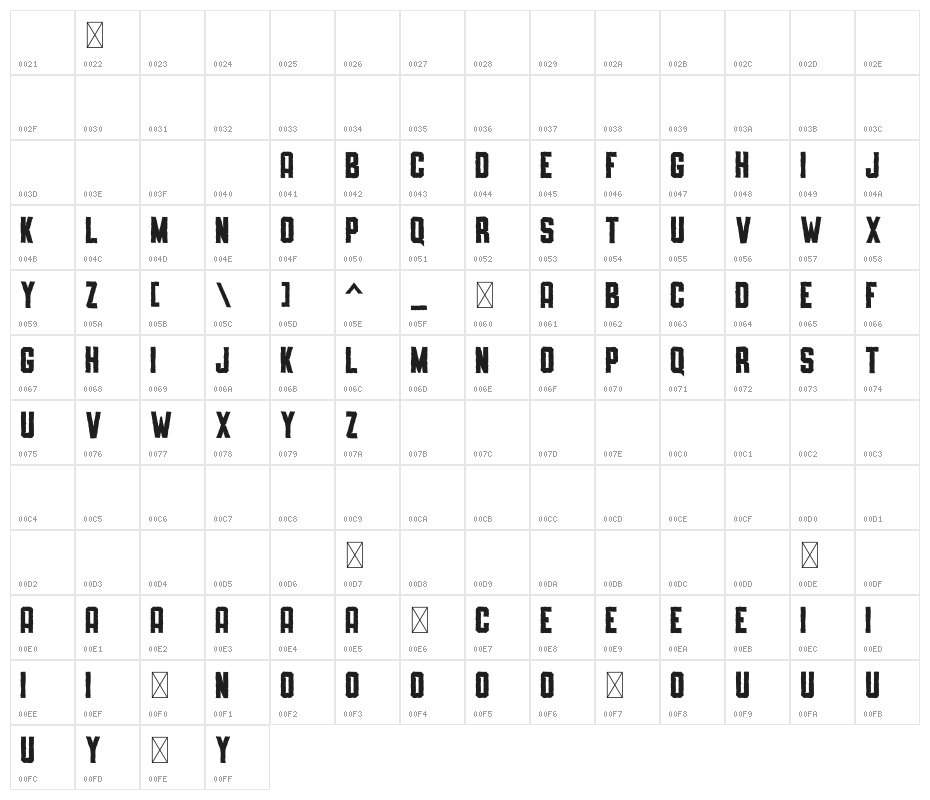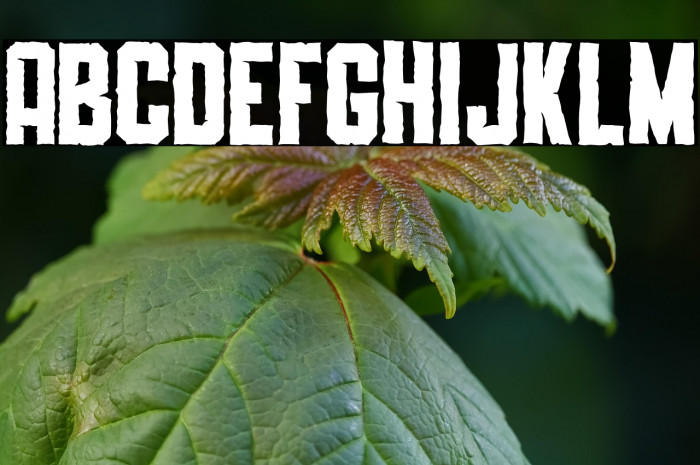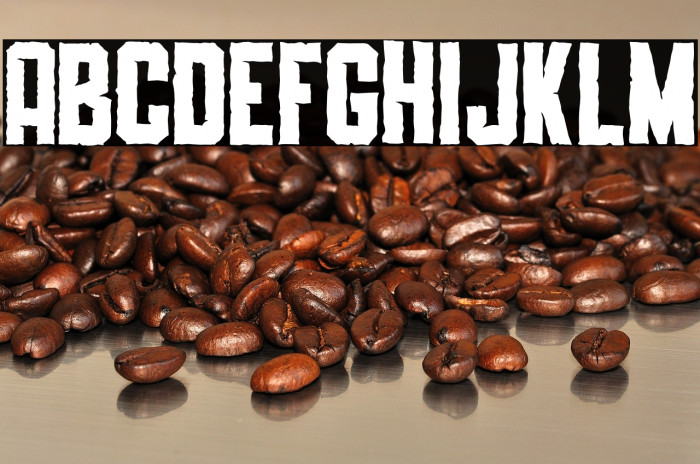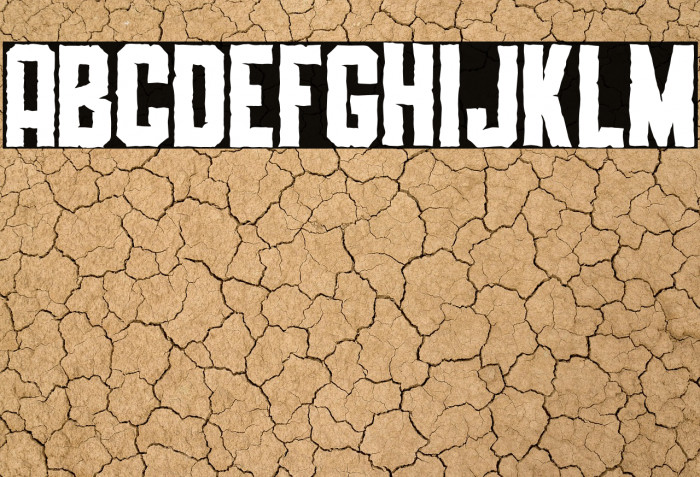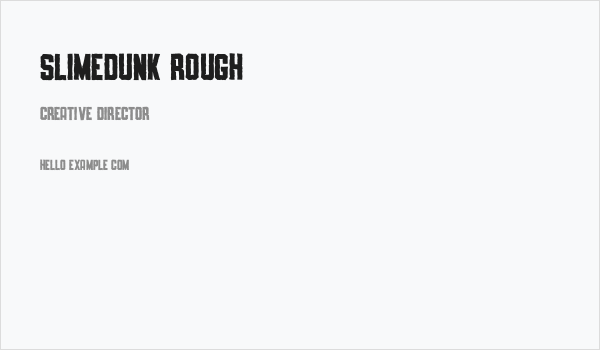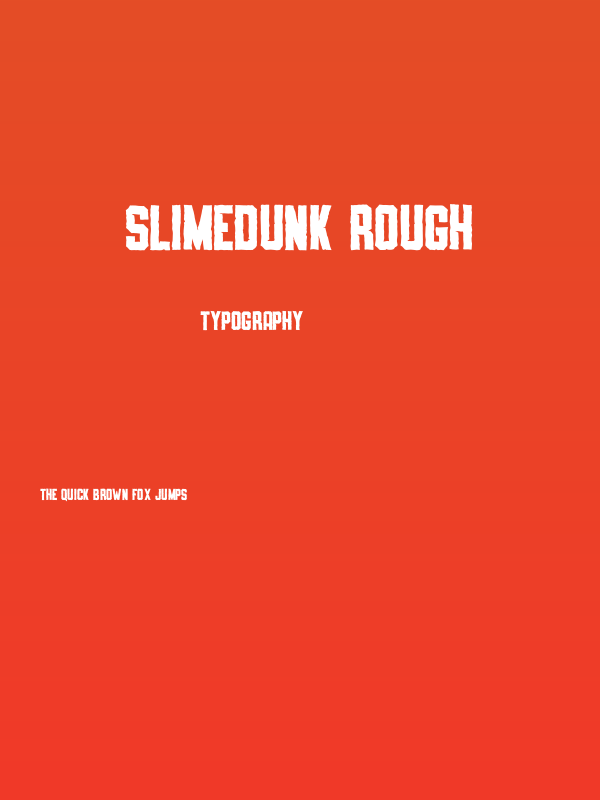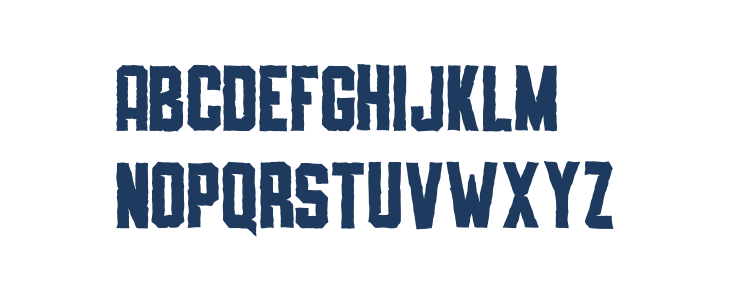
SLIMEDUNK ROUGH Font
SLIMEDUNK ROUGH Description
This font features a bold and rugged design with a distressed, rough texture that gives it a gritty, urban feel. The uppercase letters are blocky and substantial, with uneven edges that create a sense of movement and energy. The font's style is reminiscent of graffiti or street art, making it ideal for projects that require a bold, eye-catching aesthetic. Its heavy weight and distinctive appearance make it suitable for headlines, posters, and other display purposes where a strong visual impact is desired.
| Overall Style | Urban, Gritty, Bold |
| Use Case | Headlines, Posters, Logos |
| Proposed Projects | Ideal for street art-inspired designs, posters, album covers, and branding that requires a bold statement. |